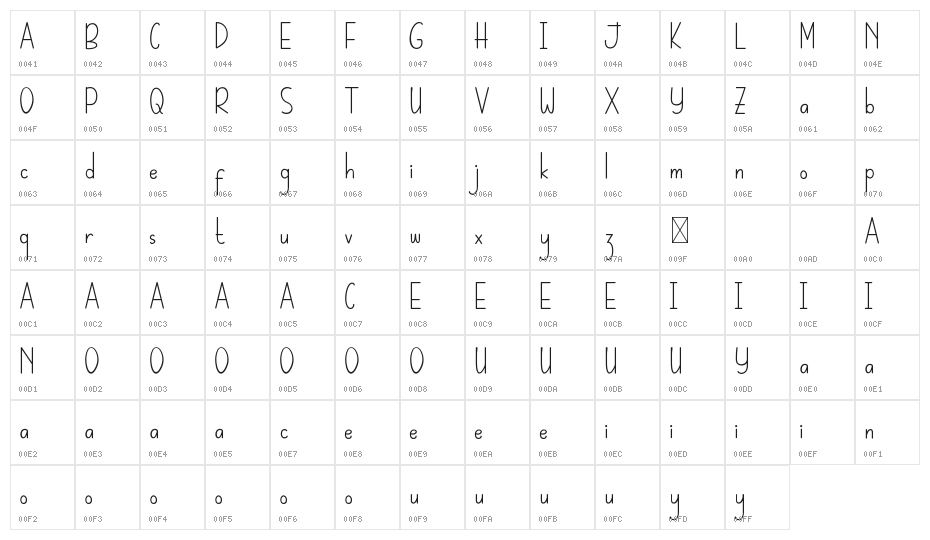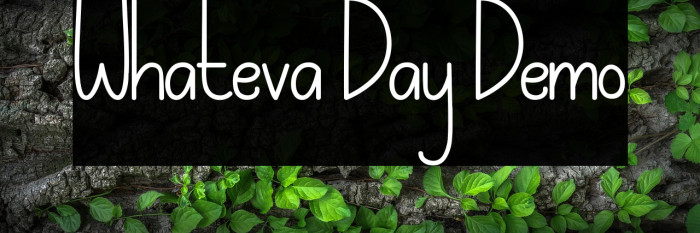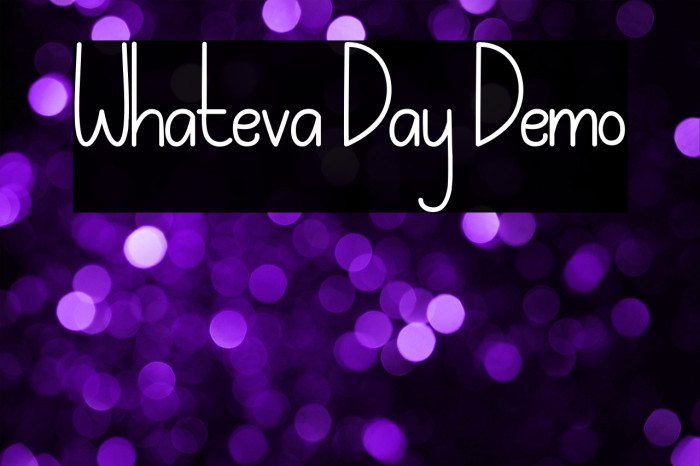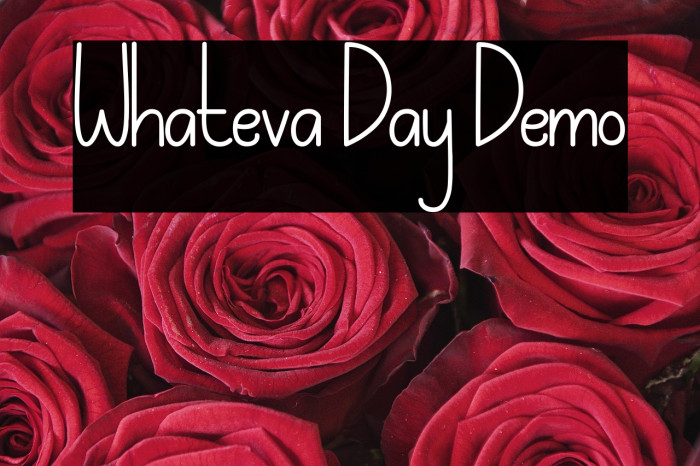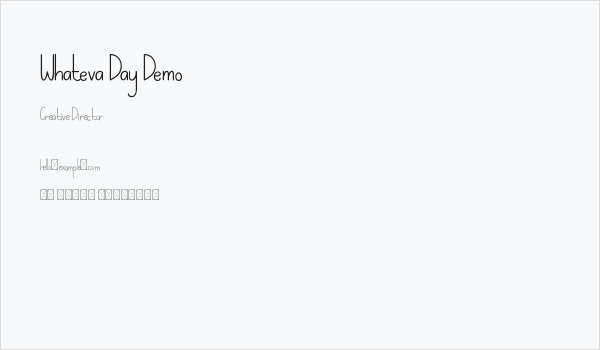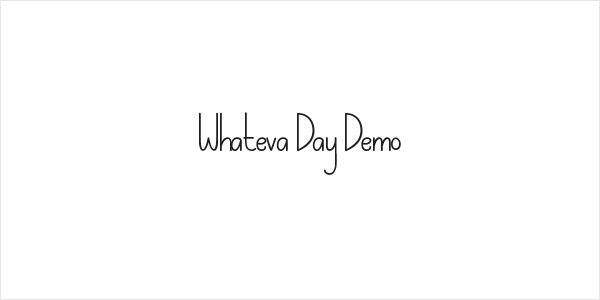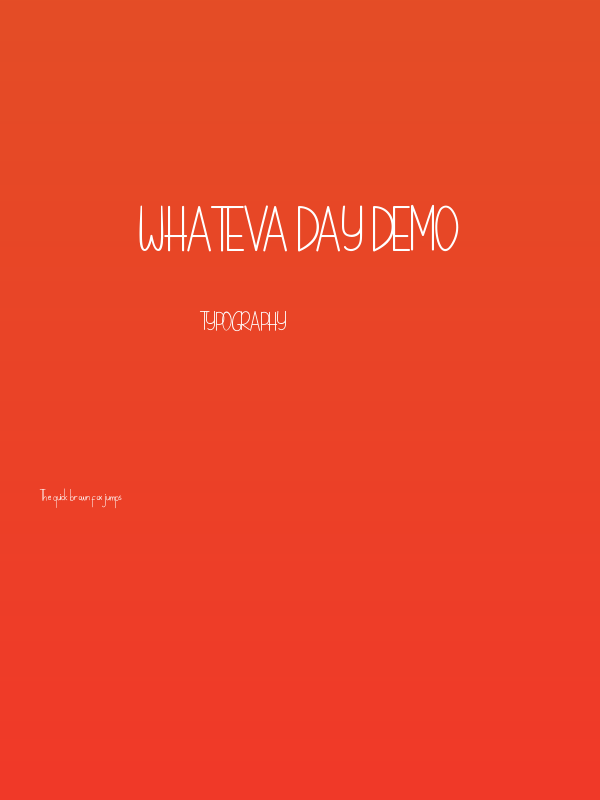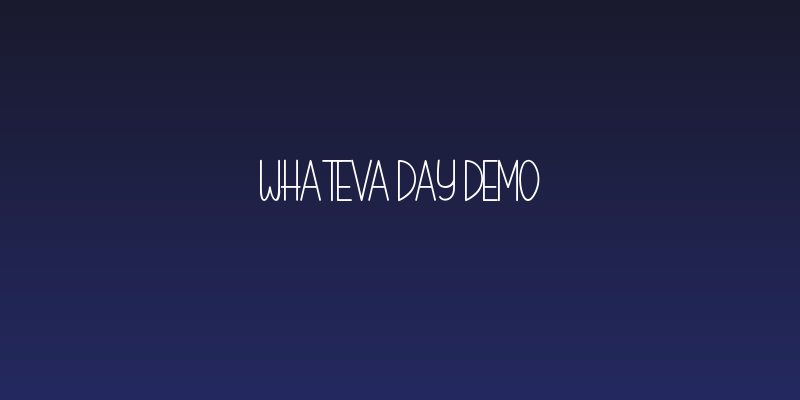
Whateva Day Demo Font
Whateva Day Demo Description
This font features a playful and whimsical design with tall, narrow letters that have a hand-drawn appearance. The characters are slightly irregular, adding to the casual and informal feel. The uppercase and lowercase letters maintain a consistent style, with elongated vertical strokes and rounded edges. The font's unique personality is enhanced by its quirky details, such as the looped descenders and ascenders. It is well-suited for creative projects that require a fun and approachable aesthetic.
| Proposed Projects | Ideal for greeting cards, children's books, playful branding, and casual invitations. |